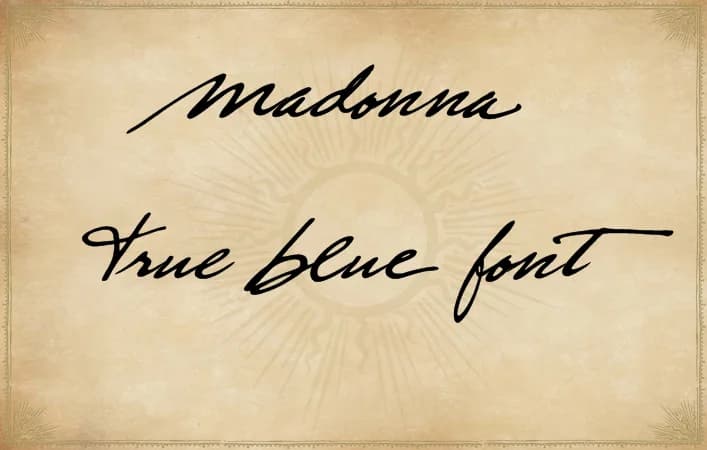
About True Blue Font
True Blue Font by Xpeehdroox is a flowing handwritten script that bridges organic letterforms with a polished contemporary aesthetic. This typeface excels at delivering authentic character to diverse creative applications. Wedding invitation suites gain an intimate, personal touch from its natural letterwork, while boutique product packaging and cosmetics labels benefit from its approachable elegance. Social media content creators find its expressive personality ideal for caption overlays and lifestyle imagery posts, and vintage-inspired restaurant menus and cafΓ© signage come alive with its nostalgic charm.
Beyond these specific applications, True Blue Font adapts seamlessly across branding and stationery projects where handmade warmth genuinely enhances perceived value. Its consistent letterforms maintain reliable legibility whether used as body text or display heading, preserving the expressive quality that distinguishes authentic hand-lettered work from standard typefaces. The script performs effectively across multiple sizes, making it equally suitable for large headlines and small accent details in both print and digital layouts.
- Elegant, Flowing, True Blue
True Blue Font is a script font that shines as a display or heading face. Pair it with a clean sans-serif or serif font for body text β the contrast creates a clear hierarchy while the two styles stay balanced and easy to read.
True Blue Font